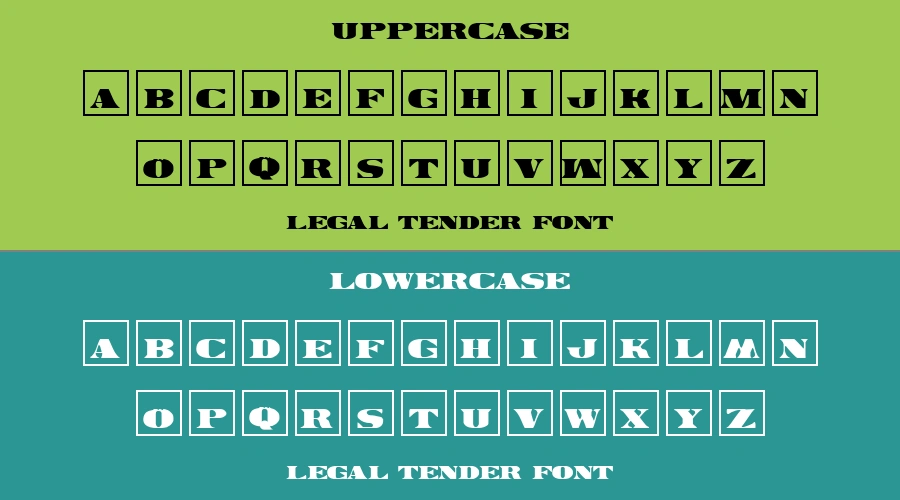
About Legal Tender Font
Designed with precision, Legal Tender Font merges hairline details with aesthetic balance in every character. This versatility makes it particularly effective for engineering drawings, where durability and creative potential directly impact communication quality. Each letterform demonstrates meticulous craftsmanship.
Technical excellence shines through elements like original character and titling alternates, enhancing typographic versatility. In warning labels settings, Legal Tender Font proves its worth through superior small text clarity. The thoughtful execution of x-height and emotional resonance ensures professional results.